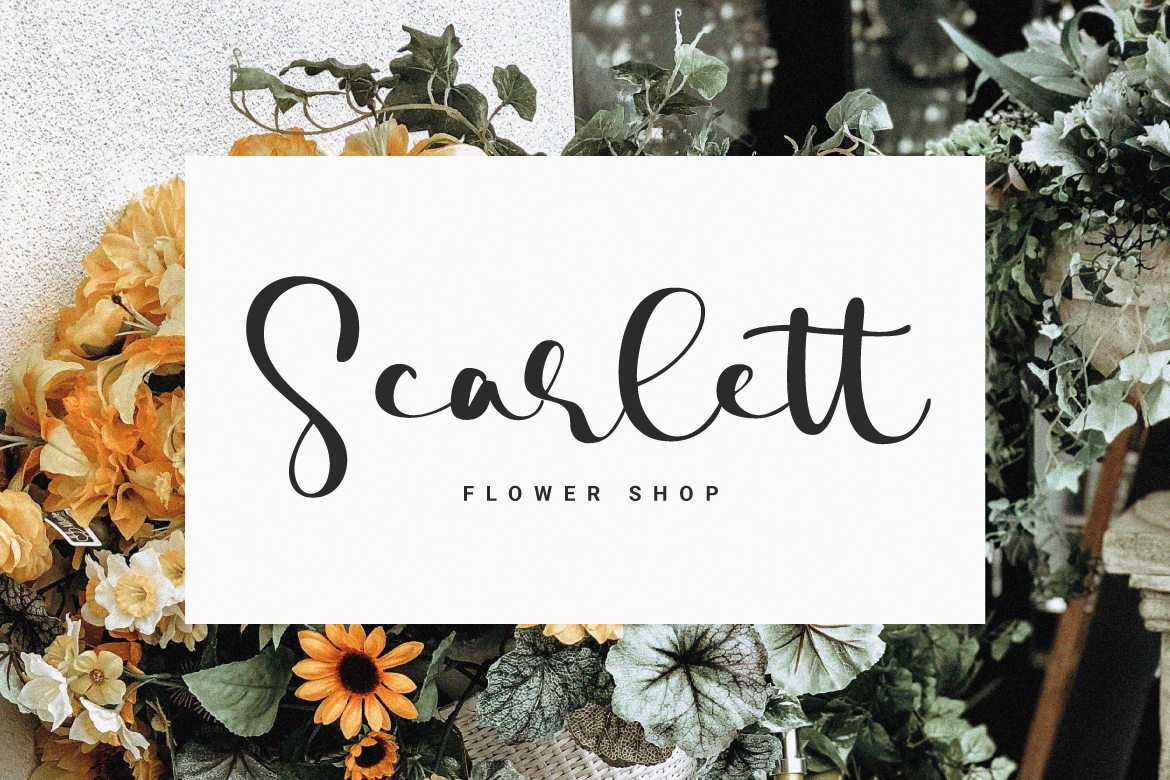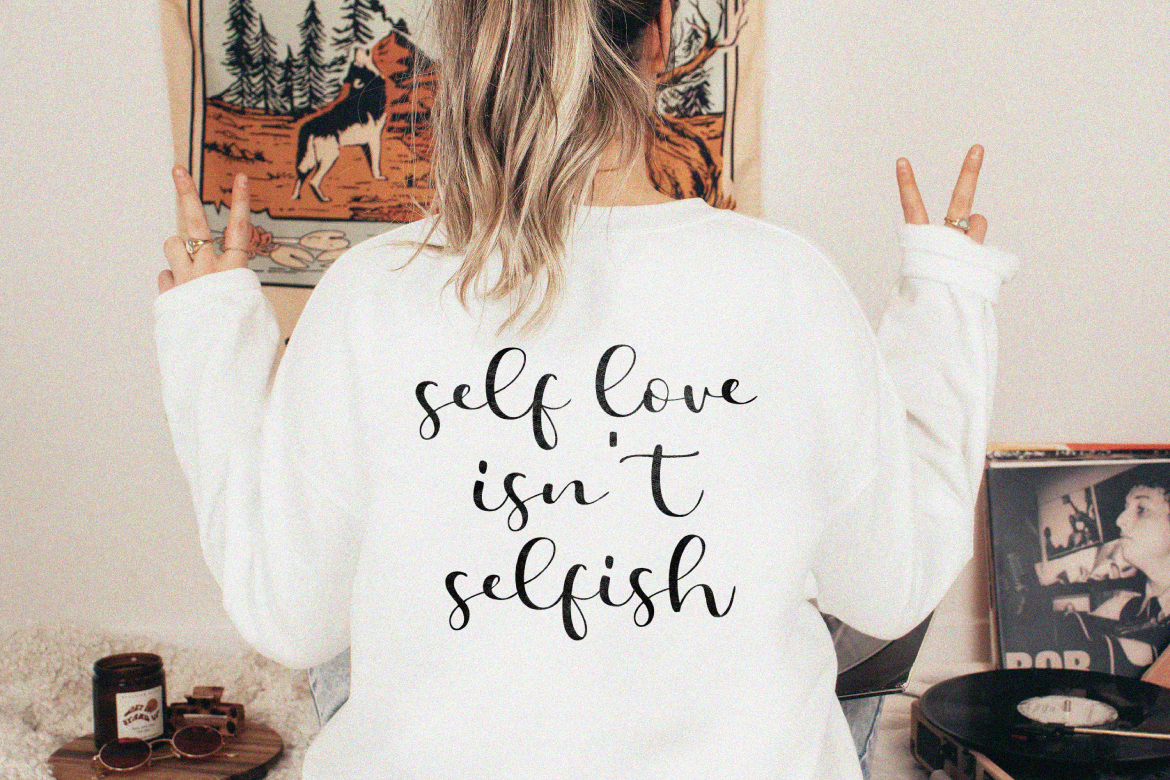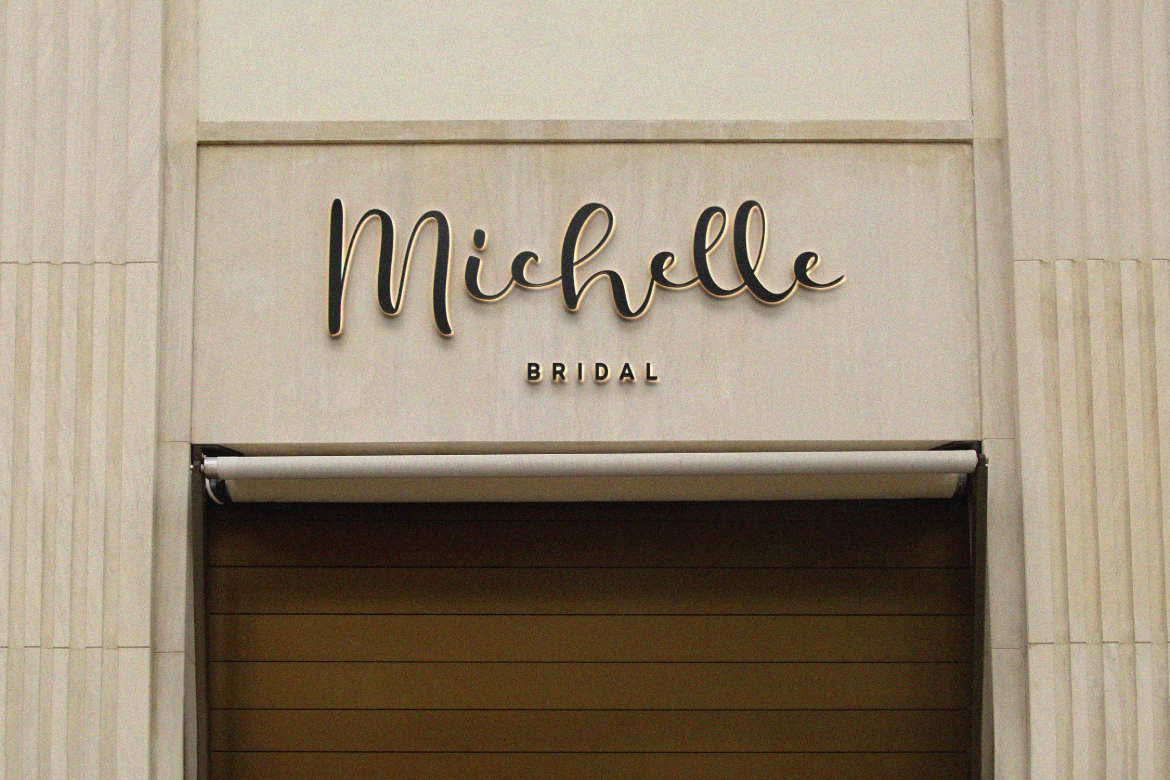
Really Darling – Handwritten Script Font
This beautiful handwritten script font is ready to accompany your charming design projects. The scratches are soft and there are ligatures that make it look more natural. Can be used in wedding invitation designs, branding, logotypes, merchandise and much more.
- Features: Uppercase, Lowercase, Numeral, Punctuation, Multilingual & Ligatures.